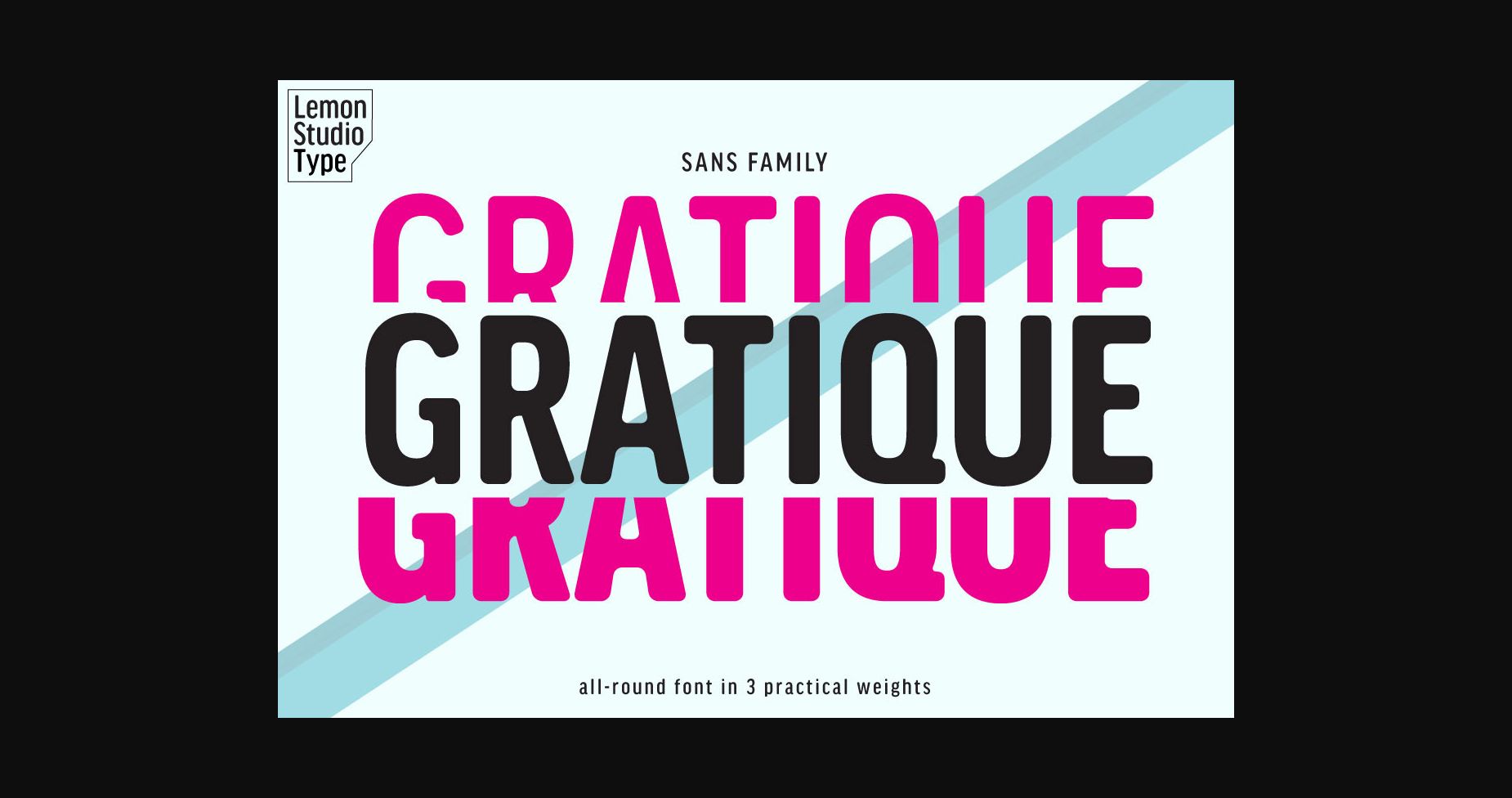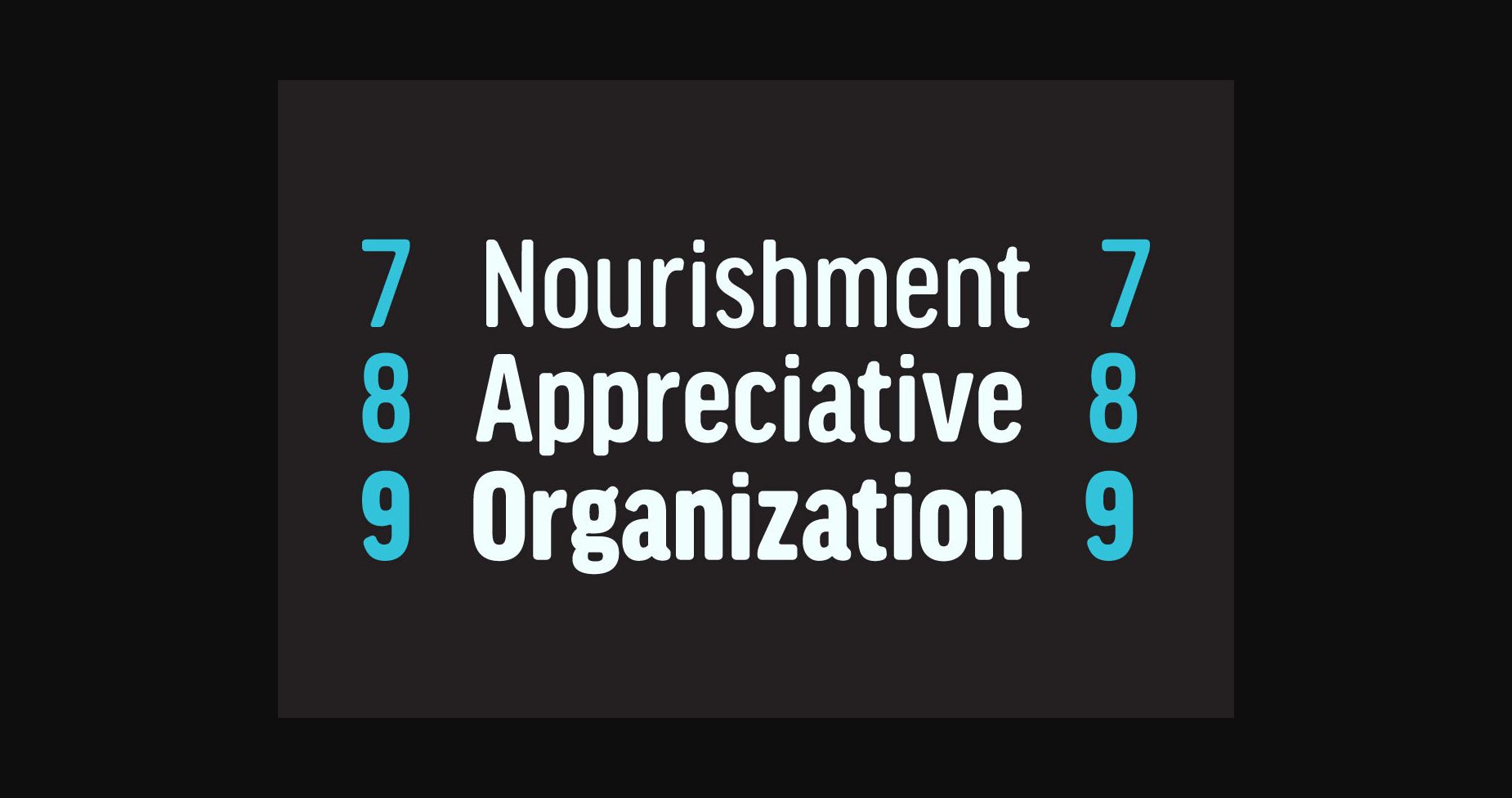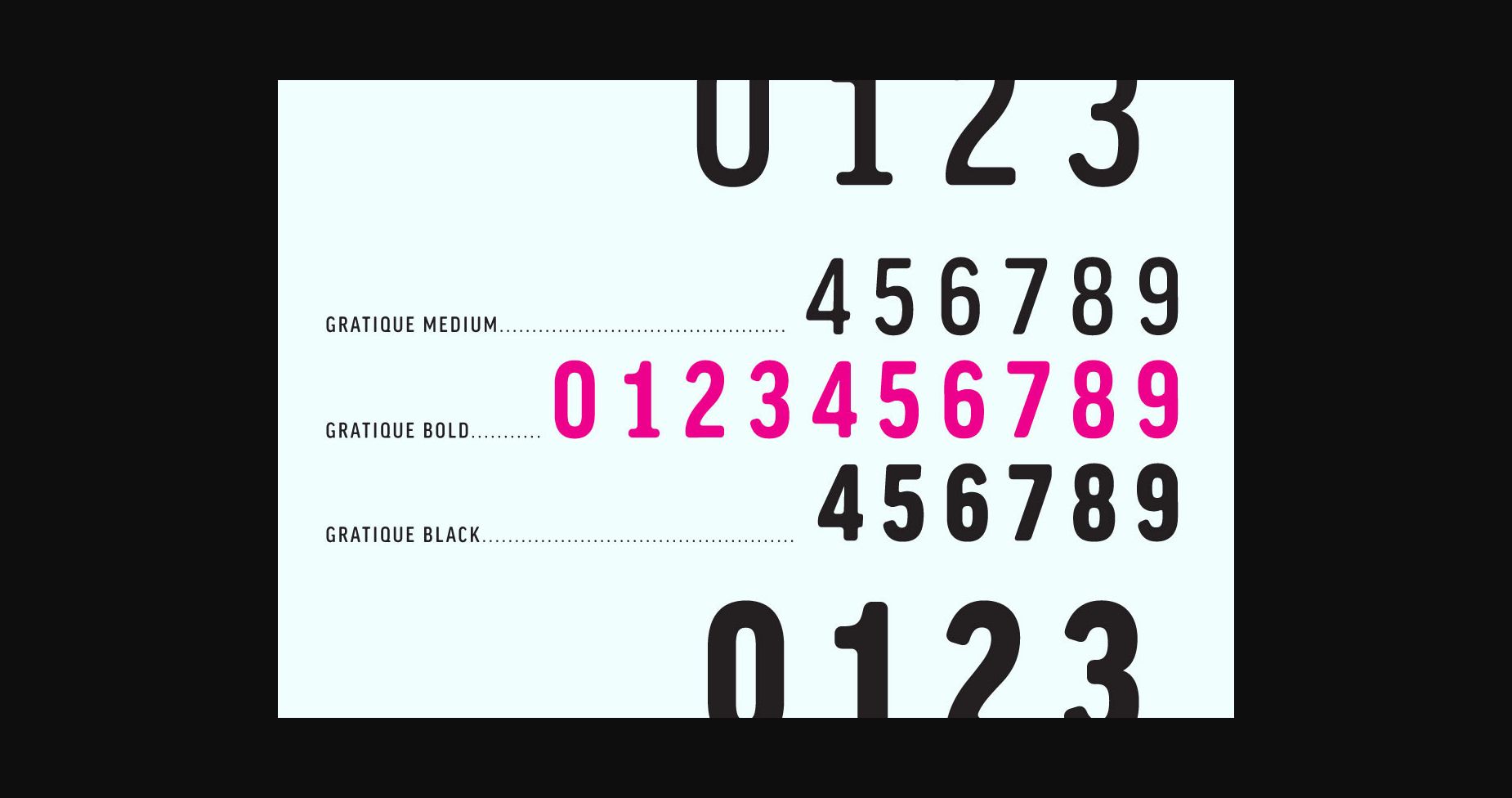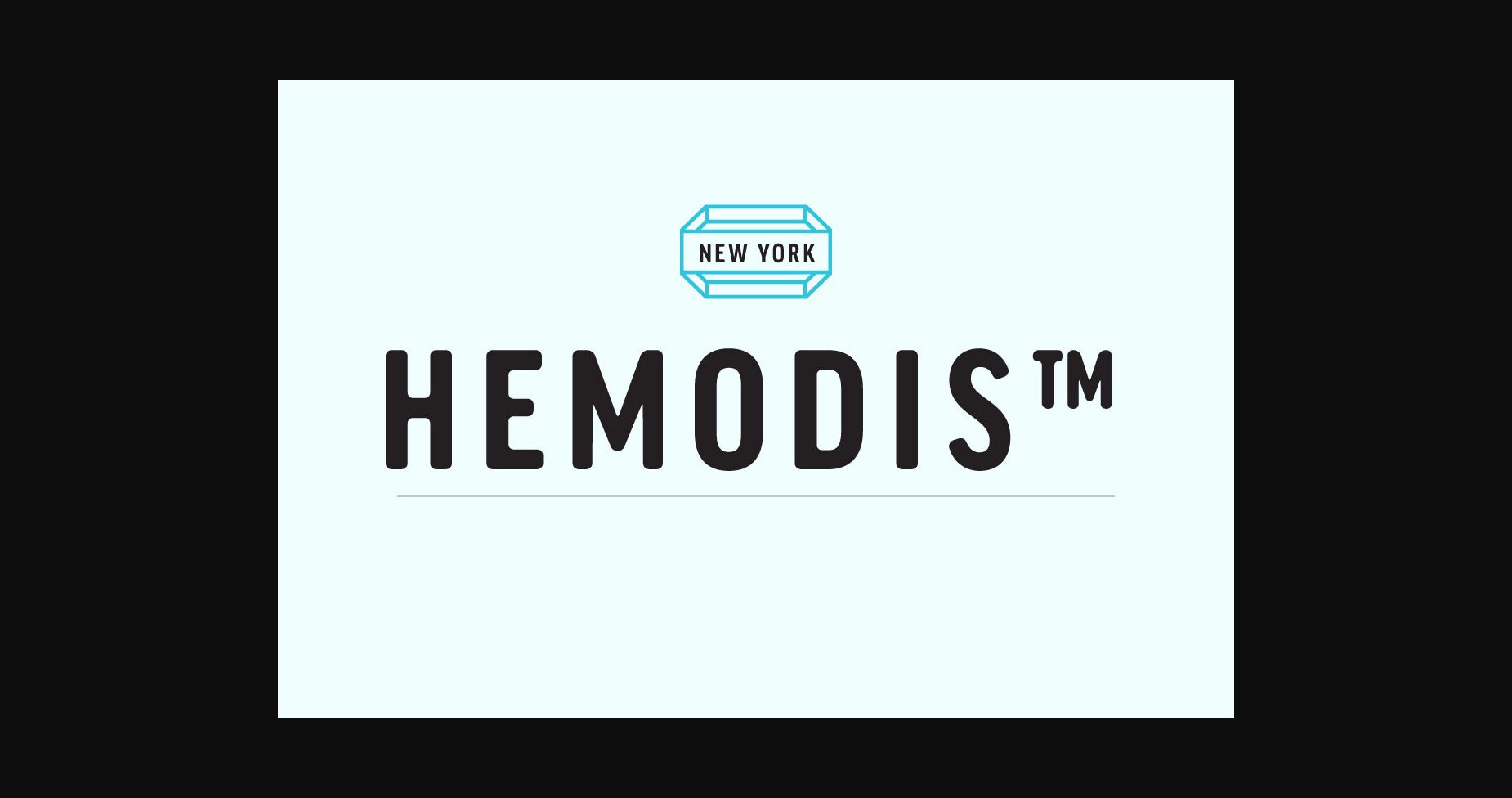
About Gratique Font
Gratique is a semi-rounded sans-serif typeface. The curvature of the corners fits perfectly and makes it look so cool.
Gratique is perfect for headings, typography, branding, mockups, or any other design you need. It looks especially nice in a sans-casual style.